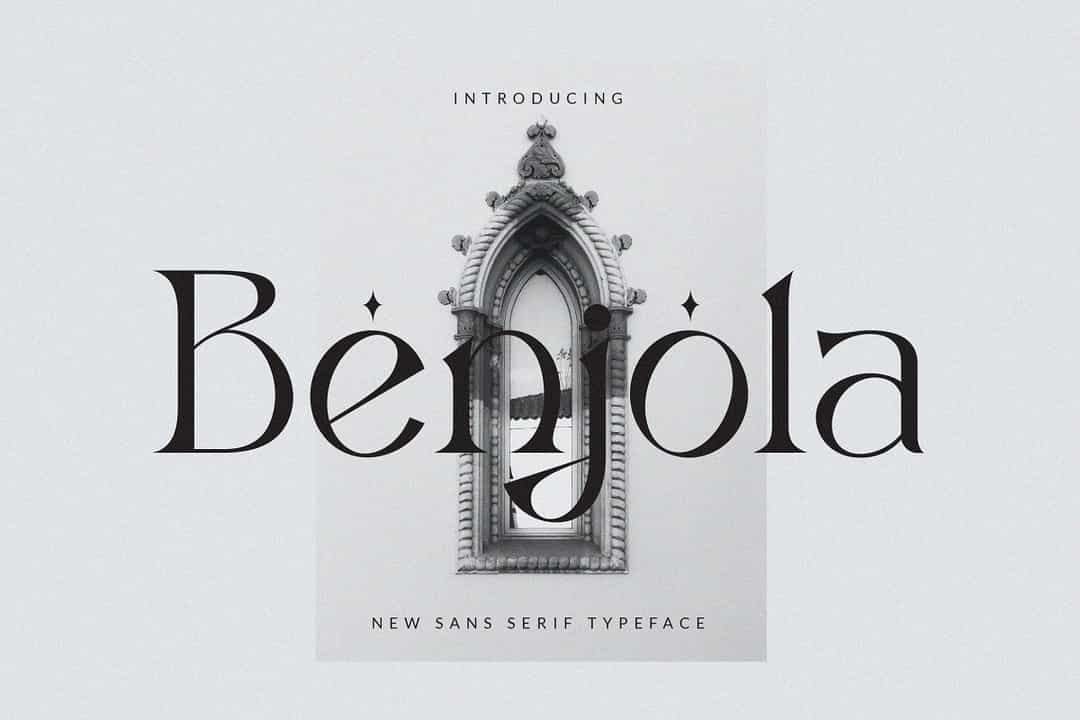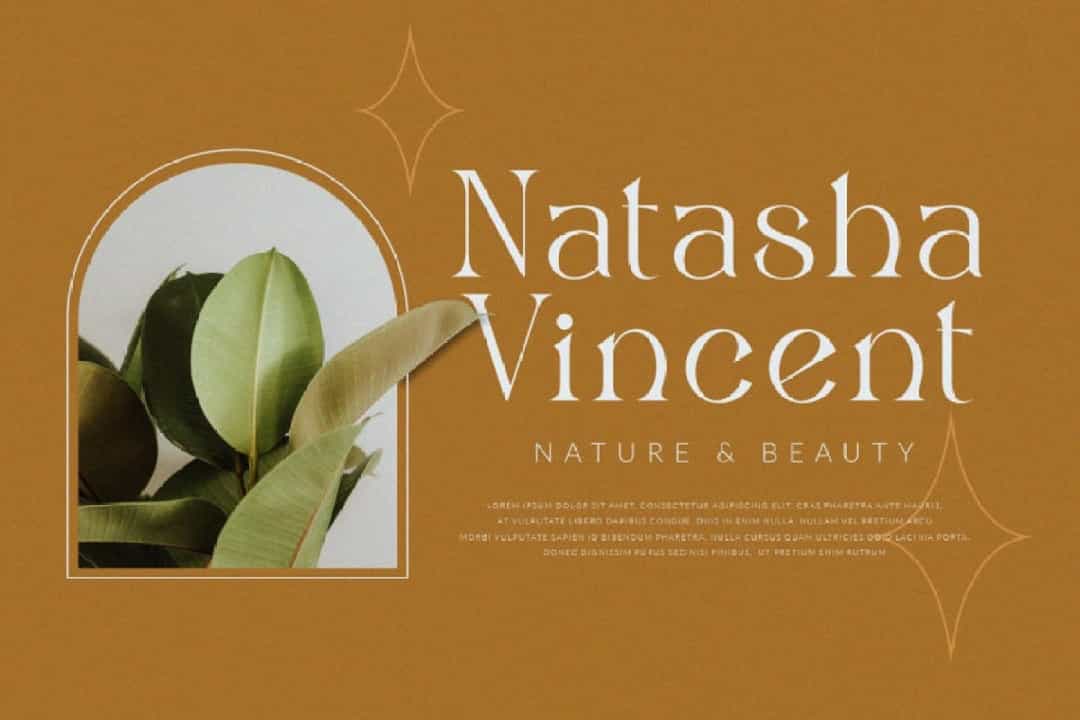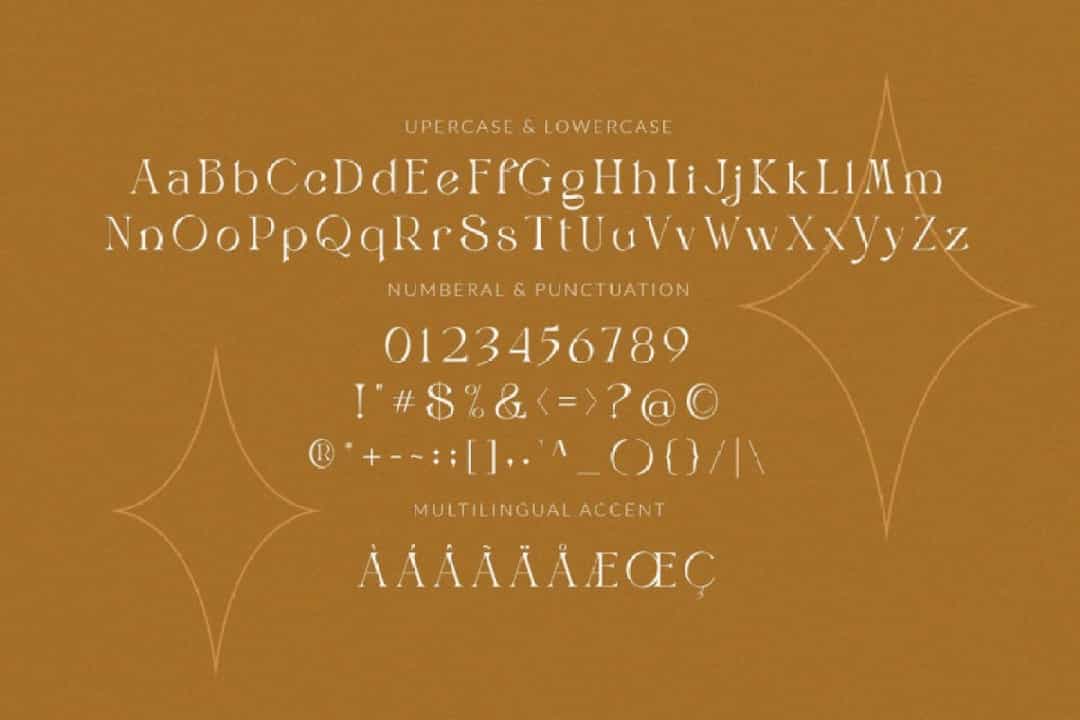
Benjola is an elegant serif font that blends classic influences with a contemporary aesthetic, effortlessly pairing classic elements with contemporary designs for maximum flexibility and elegant but subtle results. Perfectly designed to combine into various projects seamlessly. Use Benjola for maximum elegance while remaining adaptable!